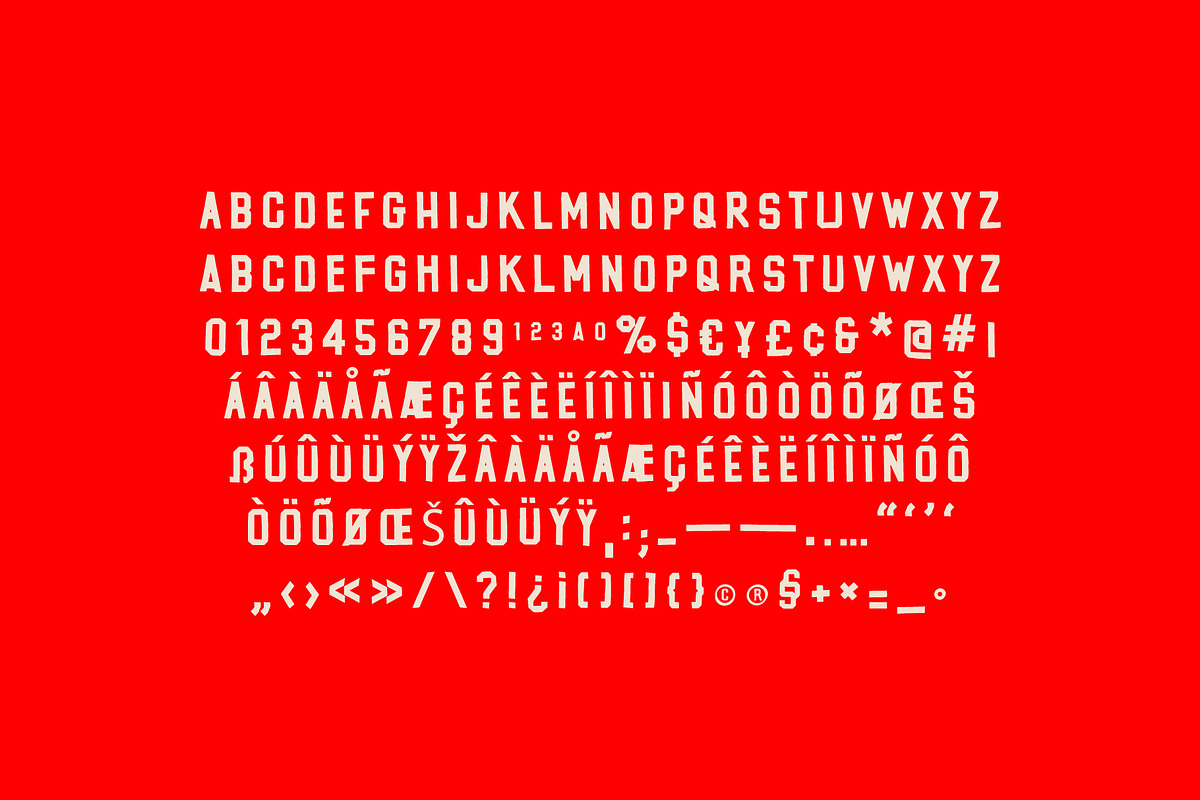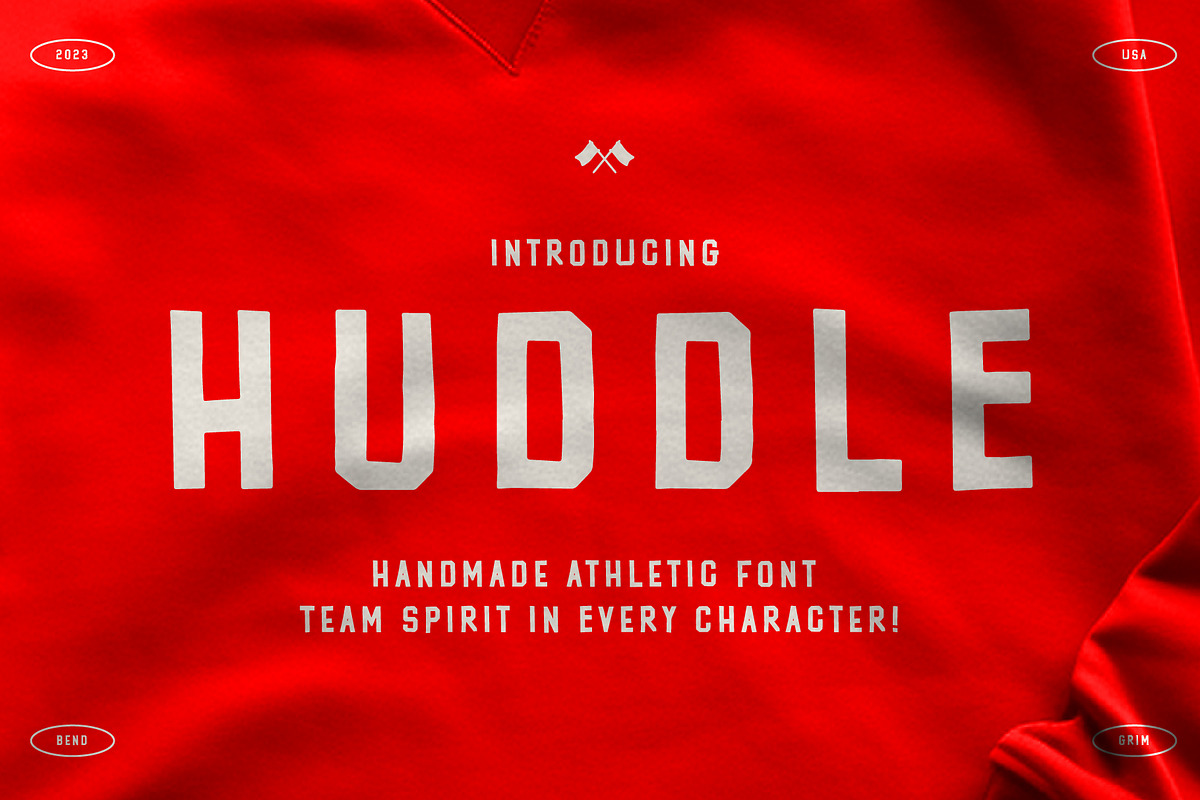
HUDDLE
Introducing Huddle, the ultimate uppercase font that's here to revolutionize your design game! With a full punctuation set and accents, Huddle brings a delightful twist to your projects, allowing you to infuse a dash of sports-inspired energy into every creation. Whether you're a seasoned designer or just starting out, Huddle promises to be your go-to teammate for crafting fun and eye-catching designs that stand out from the crowd.
Say goodbye to ordinary typography and embrace the dynamic spirit of Huddle Font. Its versatile and engaging style ensures your designs will be bursting with excitement, making them perfect for sports-related projects, team merchandise, event posters, and so much more. Embrace the thrill of the game and let Huddle elevate your projects to the championship level. Get ready to unleash your creativity, unite with this font's powerful presence, and make your design plays like never before. Don't miss out on the chance to score big – add Huddle Font to your toolkit and create winning designs that leave a lasting impression!